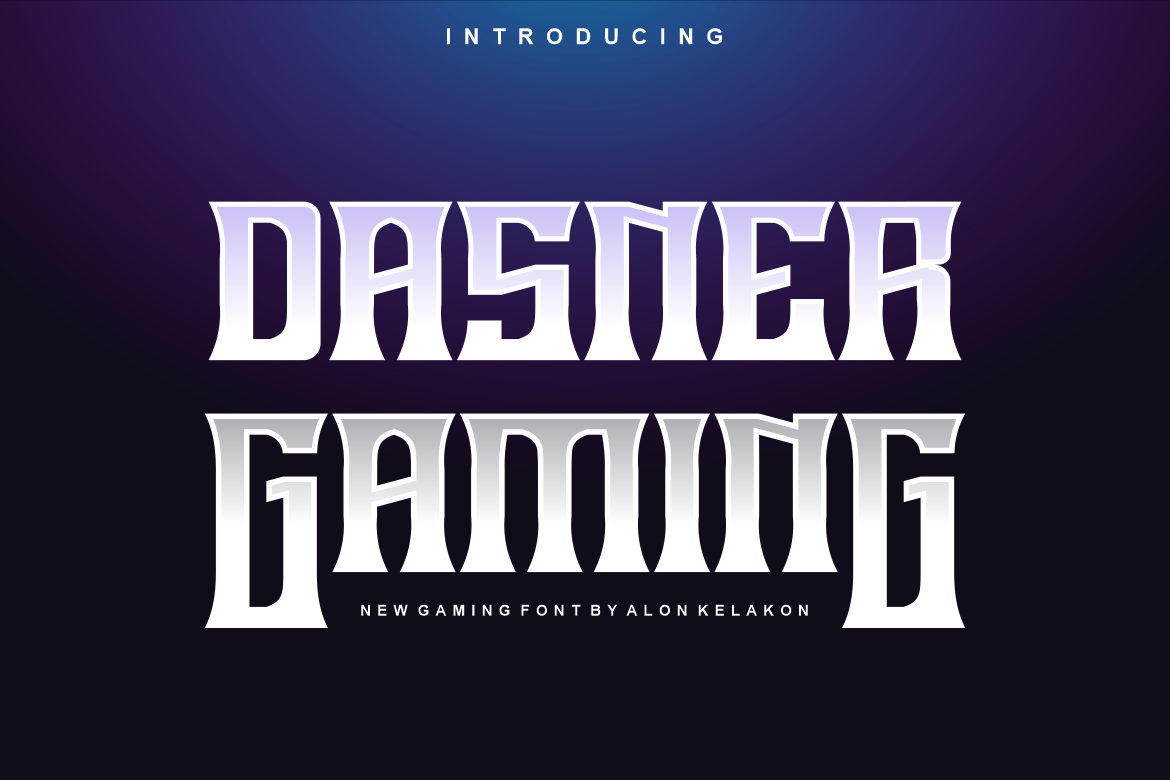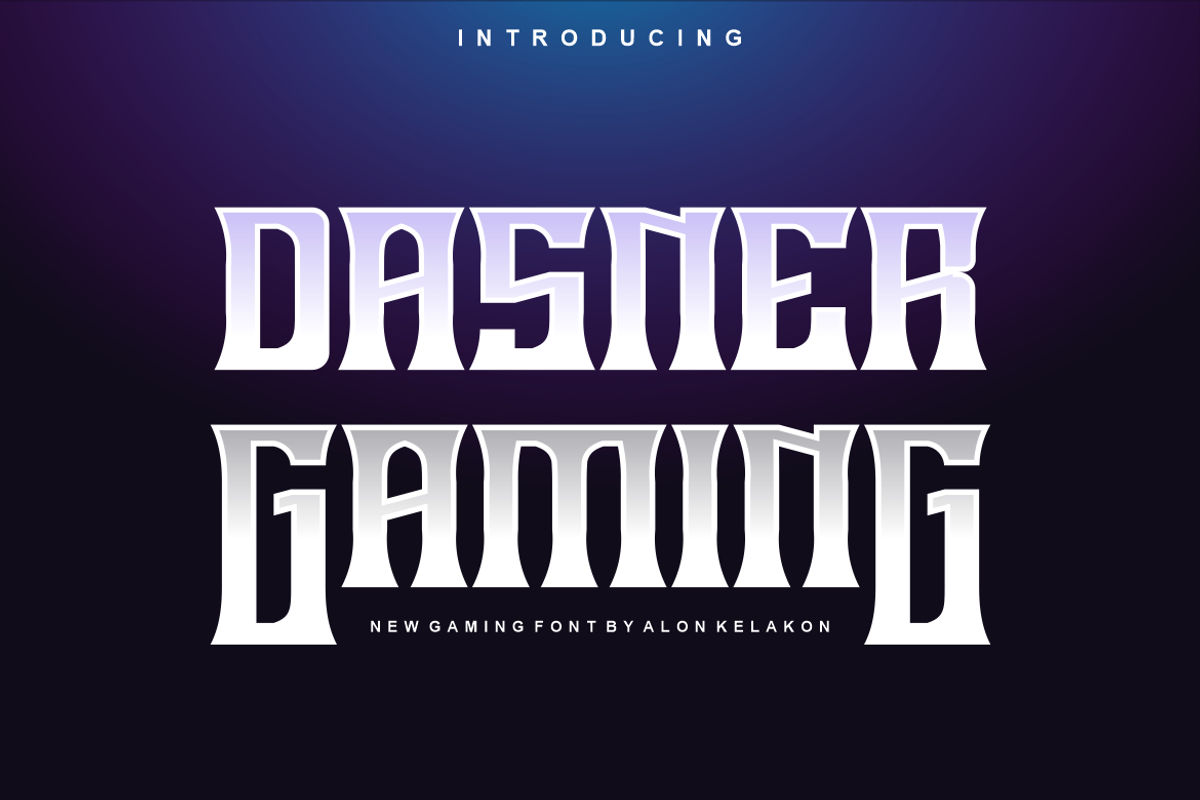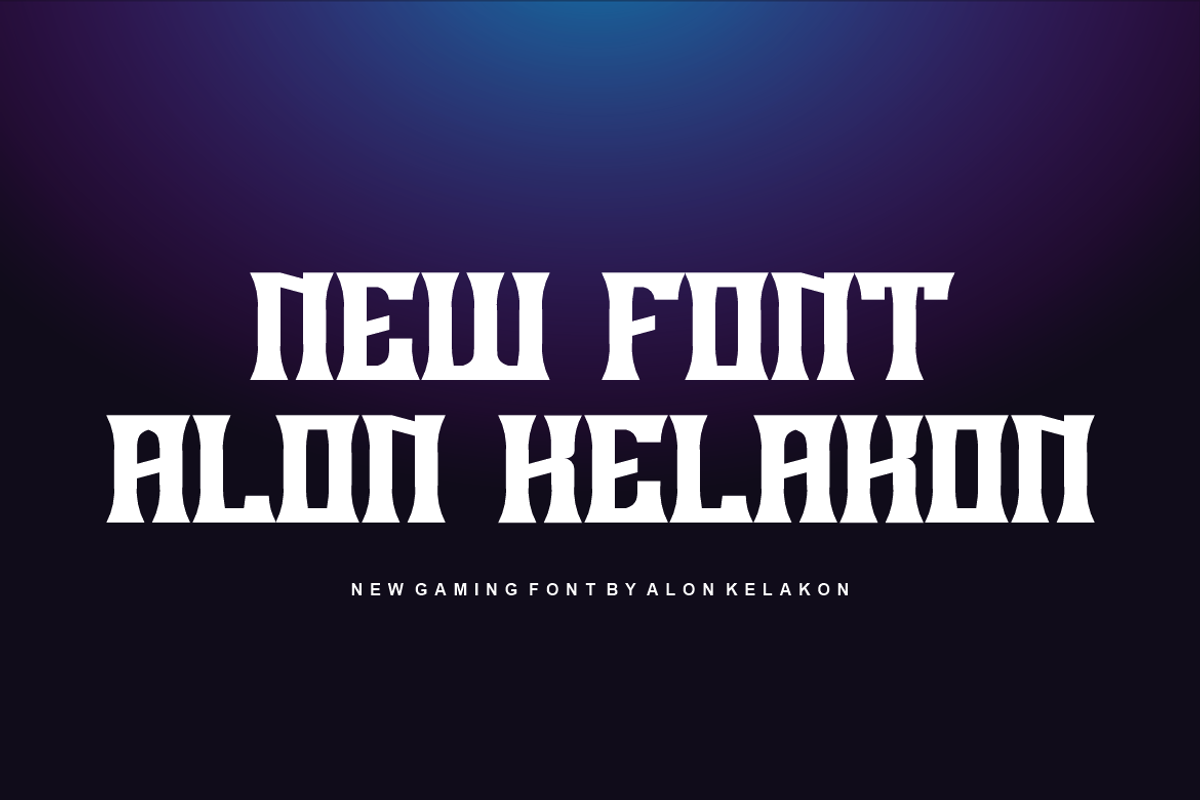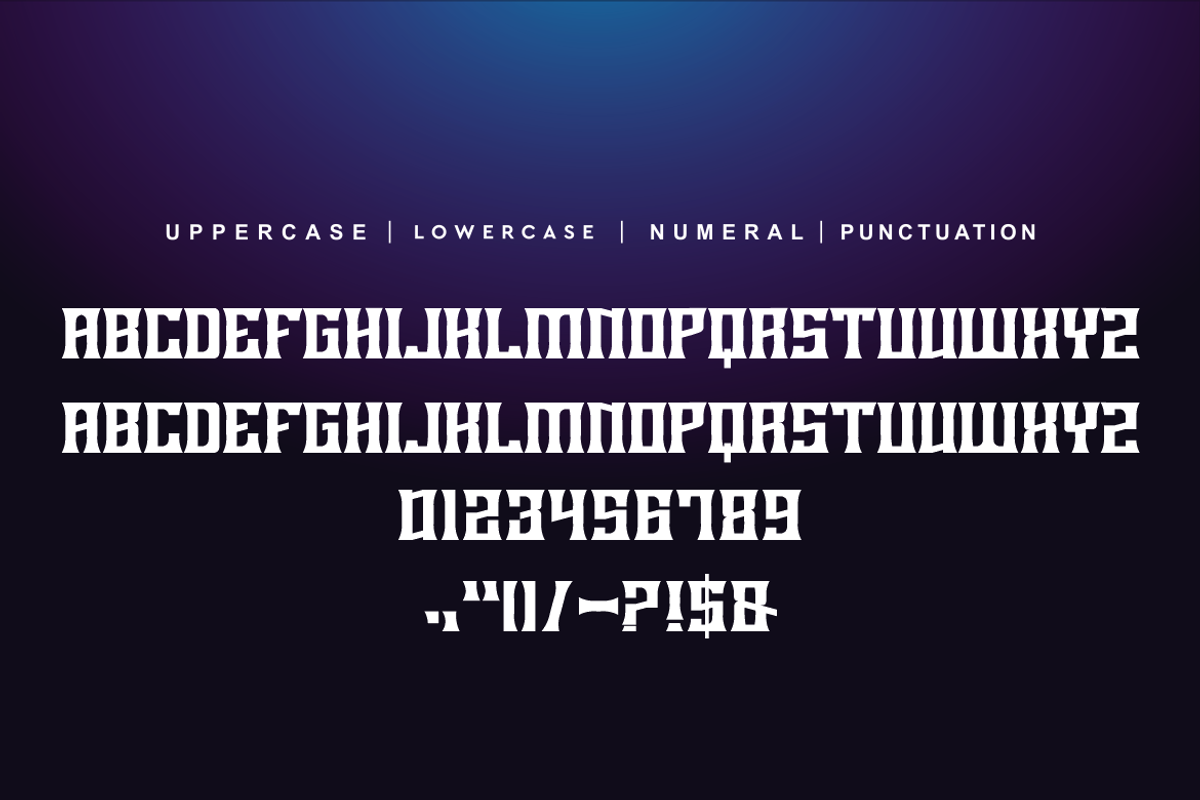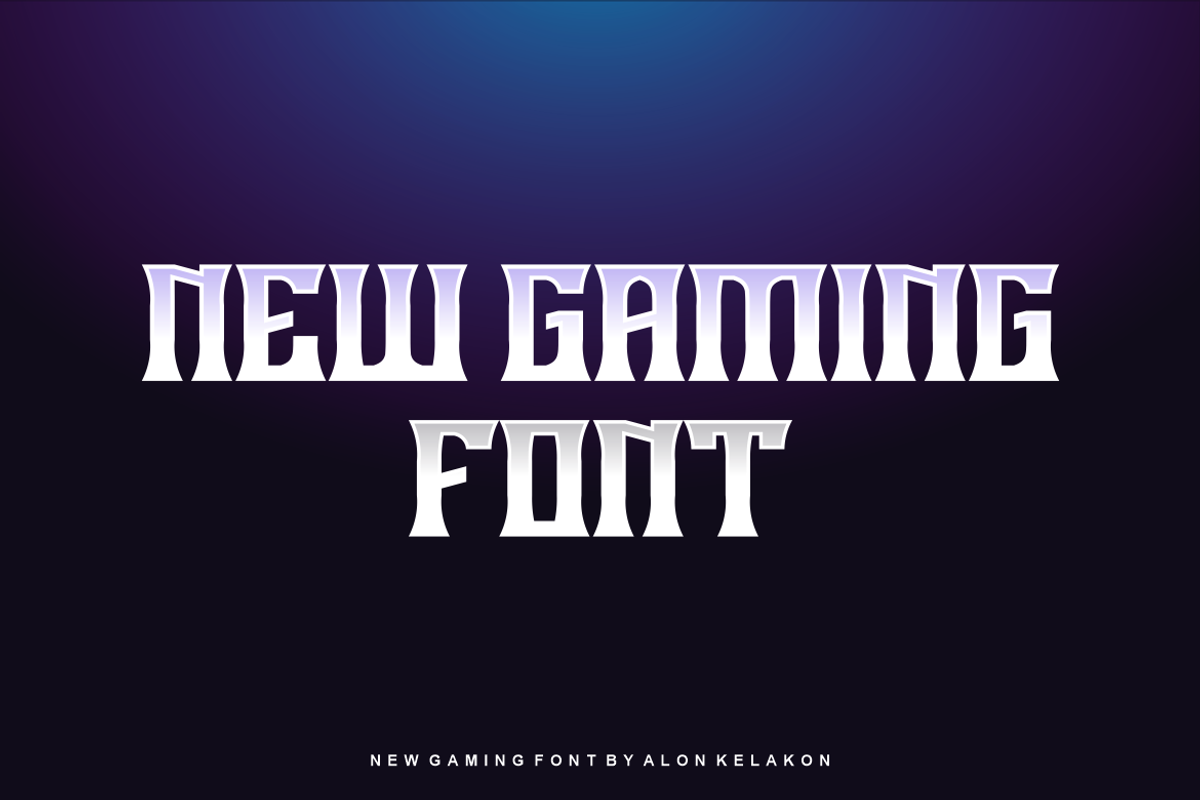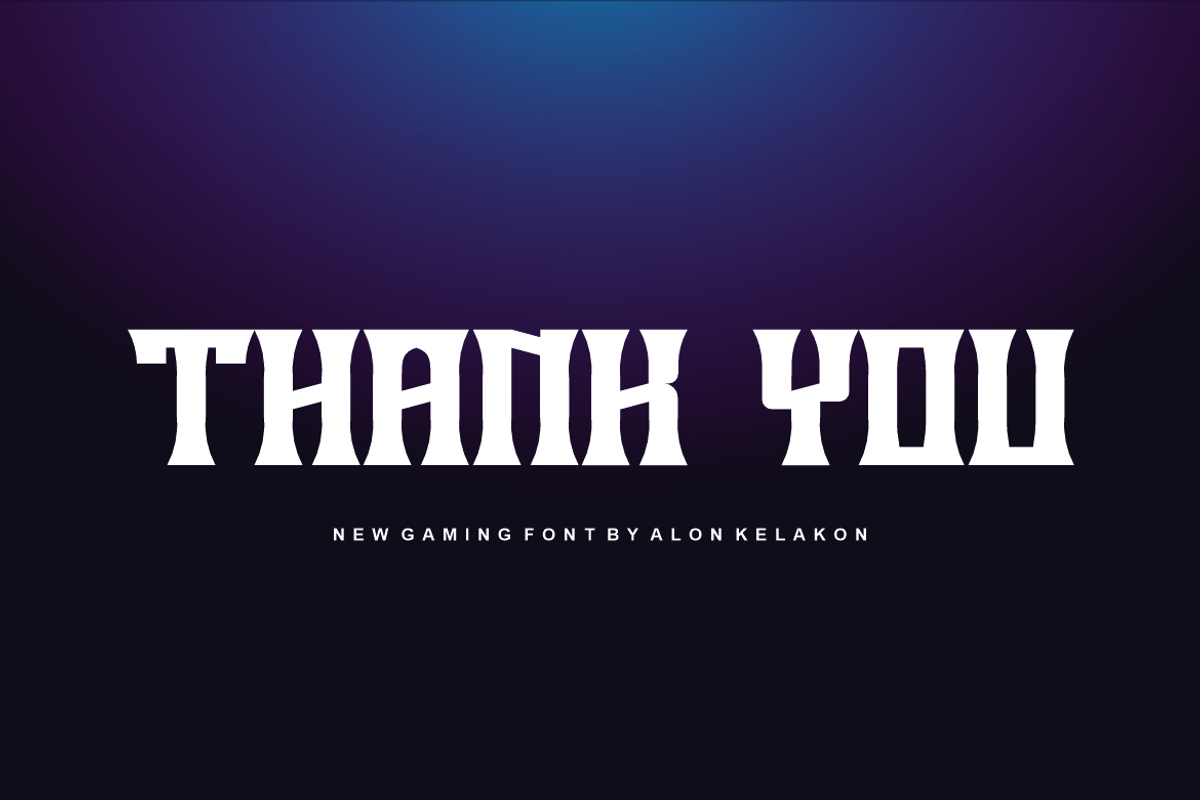
Dasner Gaming Font
Dasner Gaming Font Font is unique . Ready to use for your design like labeling, clothing, movie sceen, poster, movie title, gigs, album covers, logos, and much more.